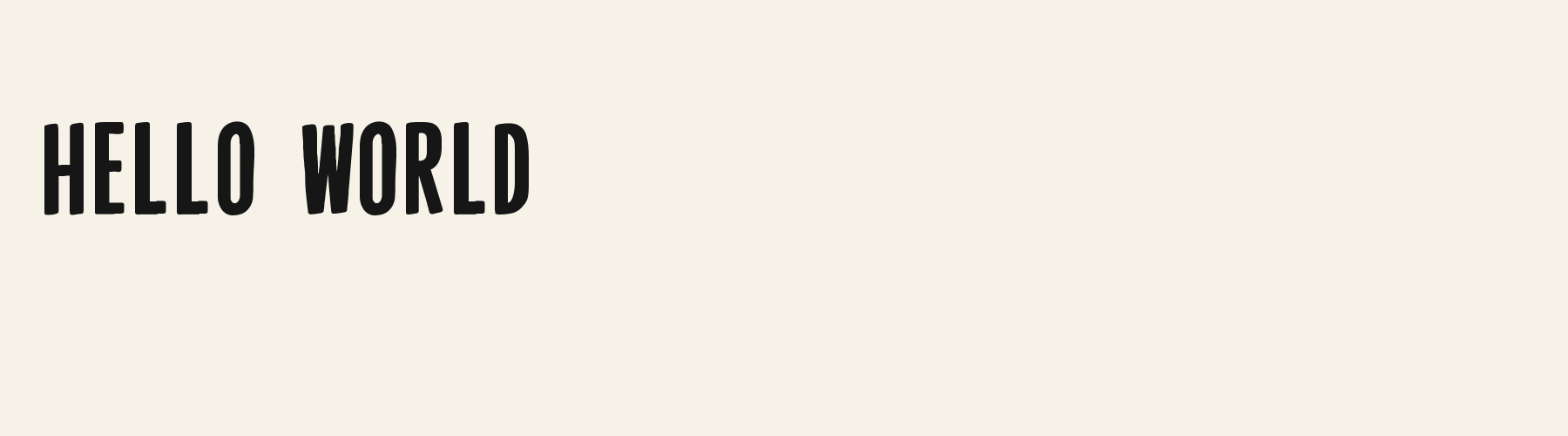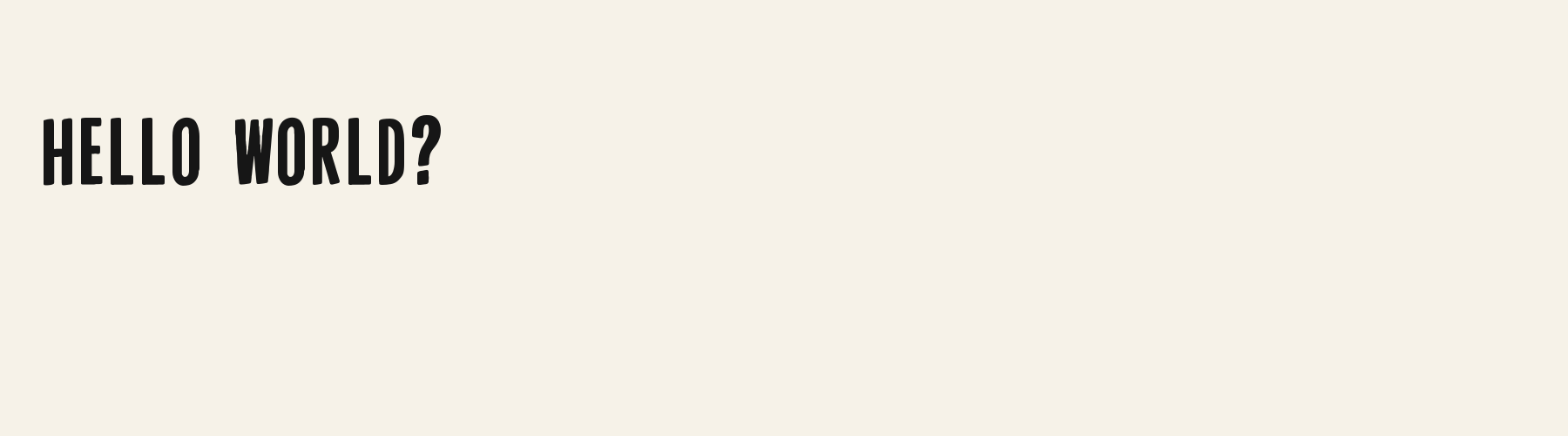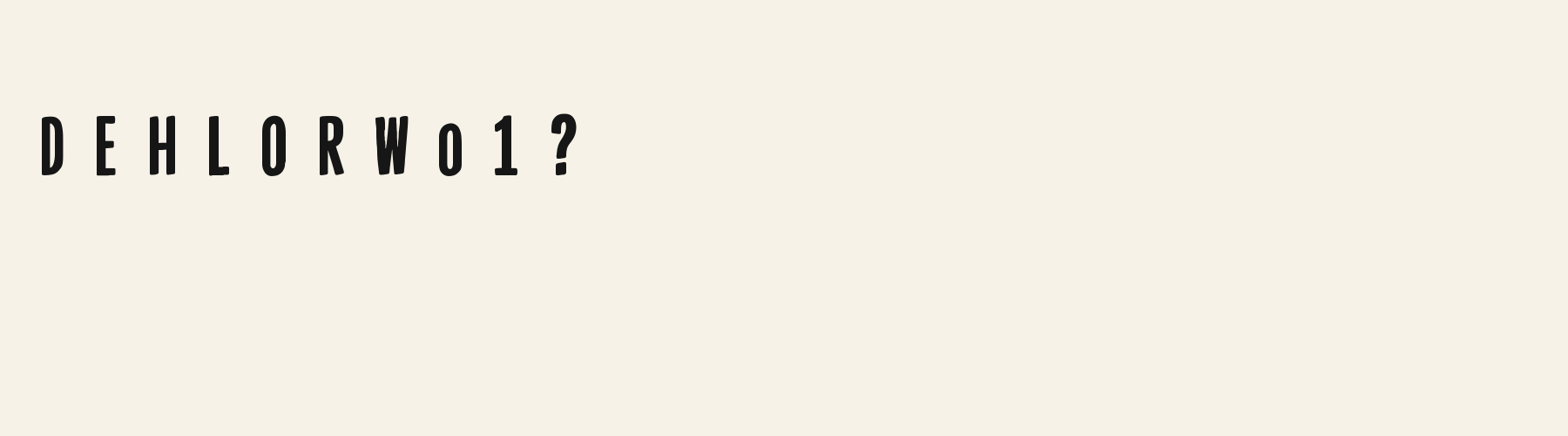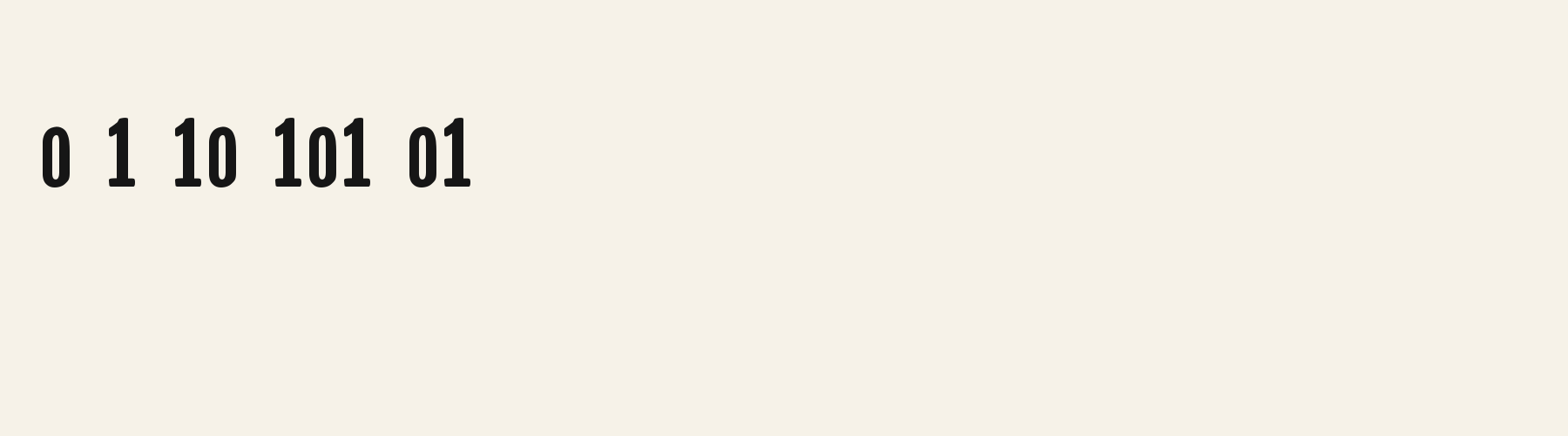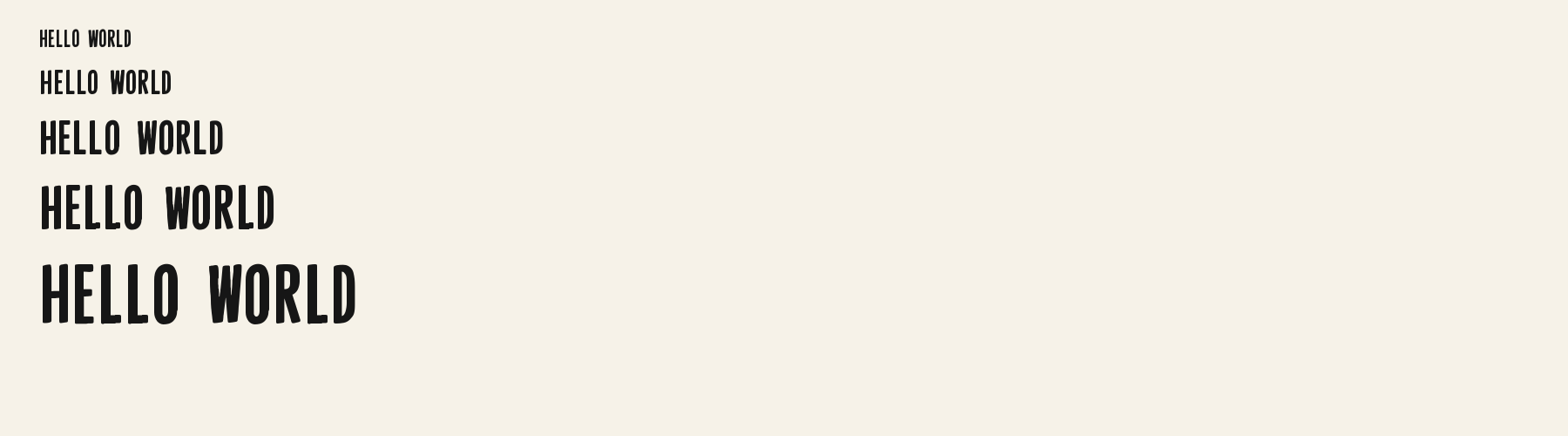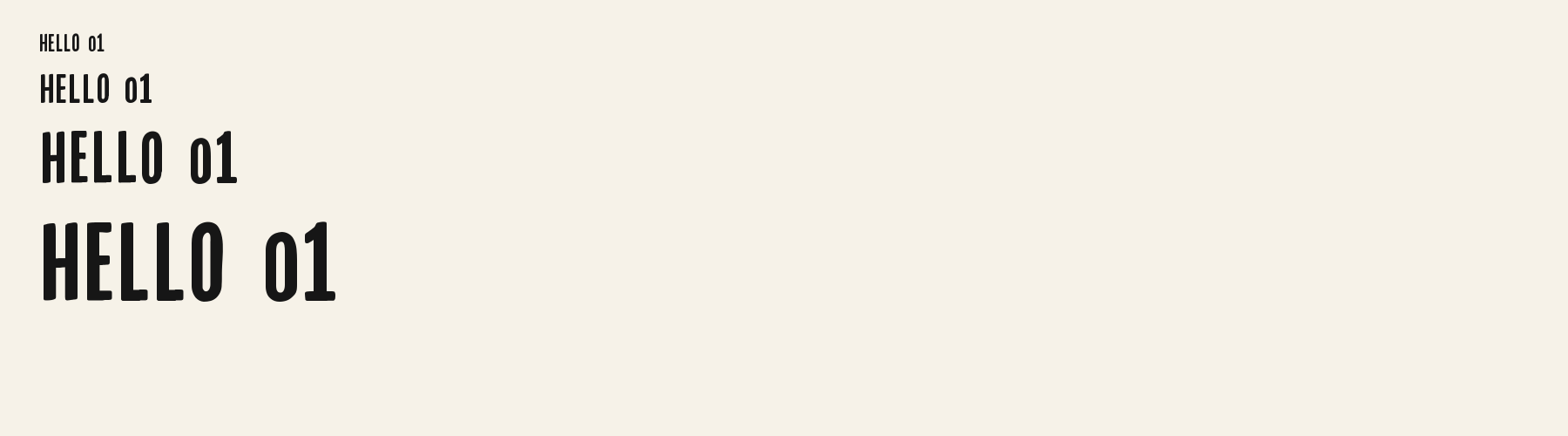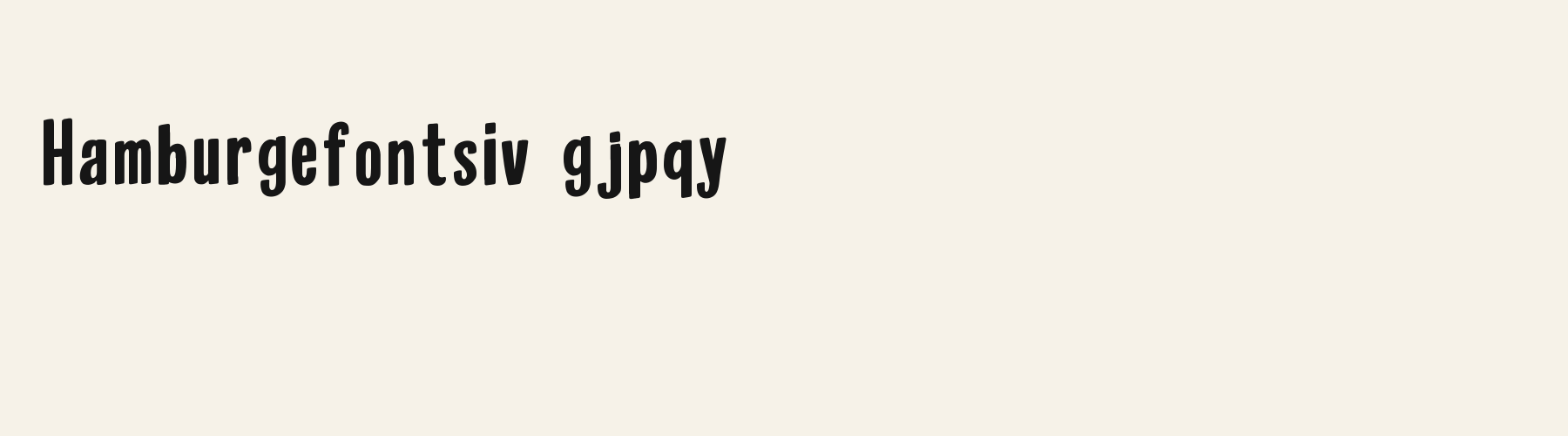
Brush Mural Condensed is a store signs, event boards, and narrow posters. Nearly monoline brush strokes with squared terminals. Best for store signs, event boards, and narrow posters.
Includes all 95 printable Basic Latin characters and 148 glyphs in total.
Verified language coverage: English (Basic Latin)